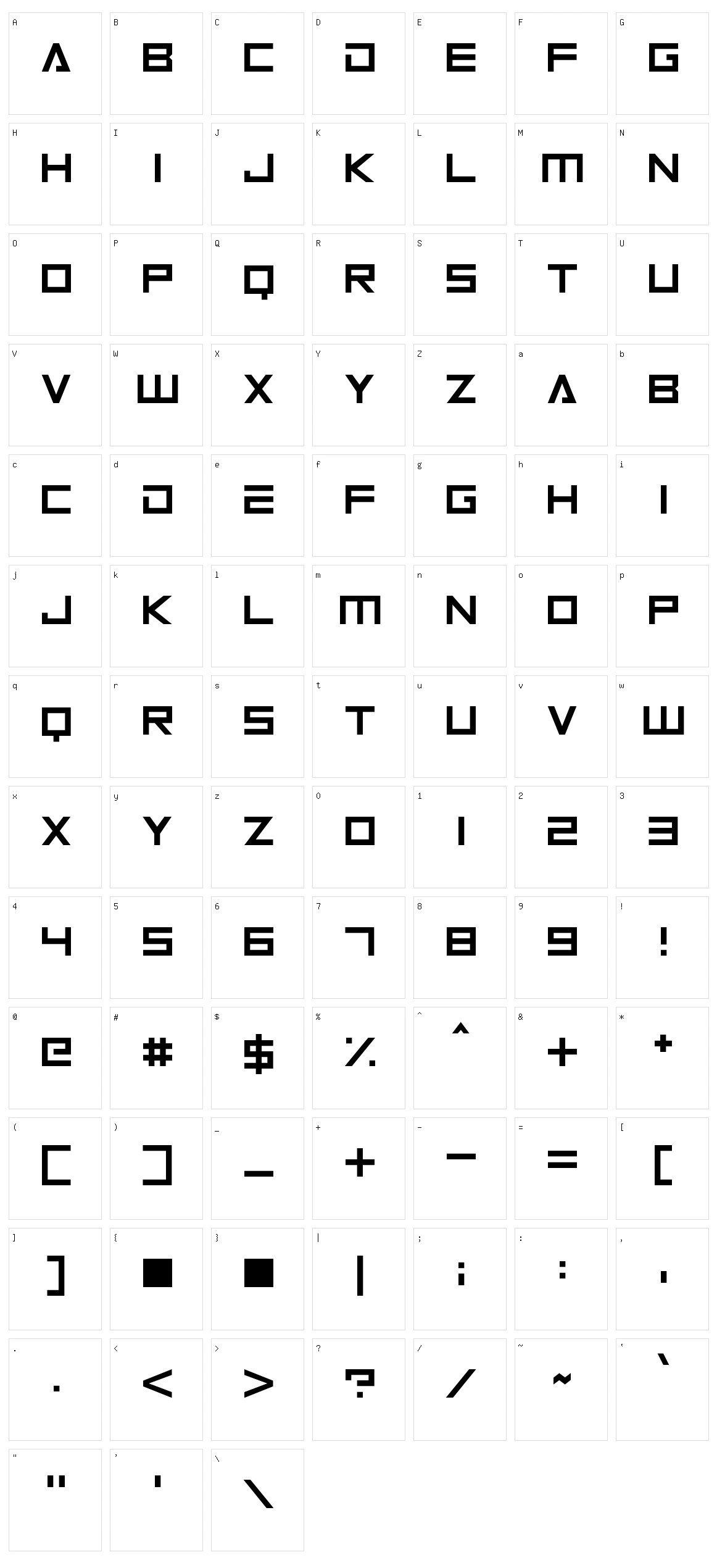
The free font Android 101 is carefully designed by Hawtpixel, showcasing a thoughtful balance of creativity and usability and falls under the Square font style. When you download the ZIP file, it contains only 20.74 KB of font files, making it lightweight and quick to download. Please review the license details below to understand permitted usage and distribution rights. If license information is not available, we recommend using this font for personal projects only or contacting the author directly for commercial usage permissions.